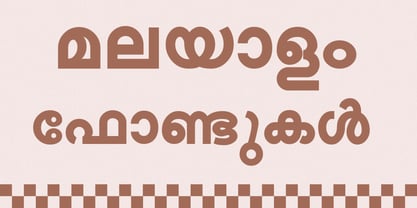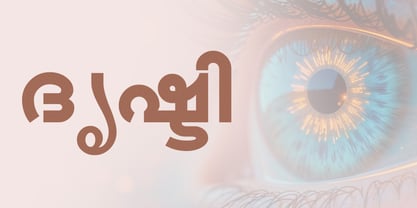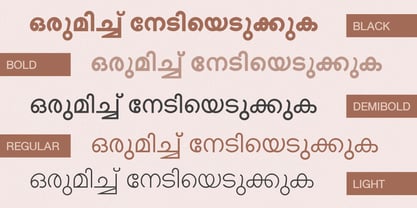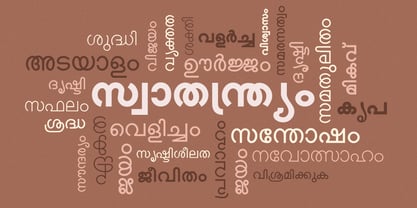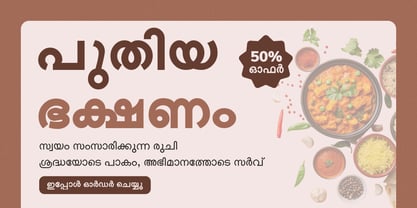
Shree Malayalam 0501
by Modular InfoTech
The Shree Malayalam 0501 Font Family was designed by Modular Infotech and published by Modular InfoTech. Shree Malayalam 0501 contains 10 styles and family package options. More about this family
Shree Malayalam 0501 is a modern, popular, and versatile text typeface designed to deliver clarity and sophistication across a wide spectrum of communication needs. It is offered in five weights—Light, Regular, Medium, Bold, and Black, each with matching italics. It provides flexibility for both expressive display and functional text applications. Its design achieves a balance between contemporary refinement and traditional script authenticity, making it suitable for projects where elegance and readability must coexist. Its readability is preserved across all scales, including small formats. With consistent proportions and well-tuned spacing, the typeface maintains rhythm and harmony even in dense compositions, ensuring a polished and professional appearance across media. Shree Malayalam 0501 is ideal for newspapers, magazines, and book publishing, as well as it equally adapts well to branding, advertising, and digital platforms. Its versatility makes it an excellent choice for corporate identity systems, official, and educational materials, signage and packaging. Whether used for bold headlines, formal documents, or long-form text, the typeface projects reliability and authority while retaining a contemporary edge.
Designers: Modular Infotech
Foundry: Modular InfoTech